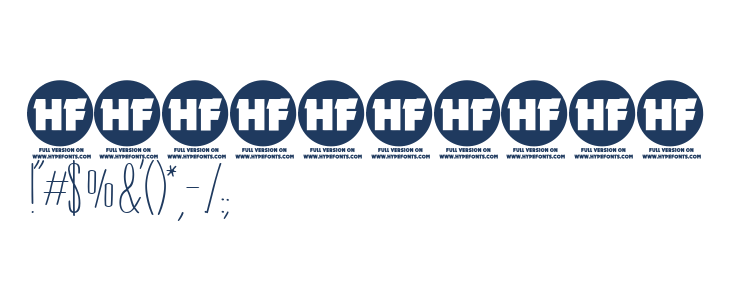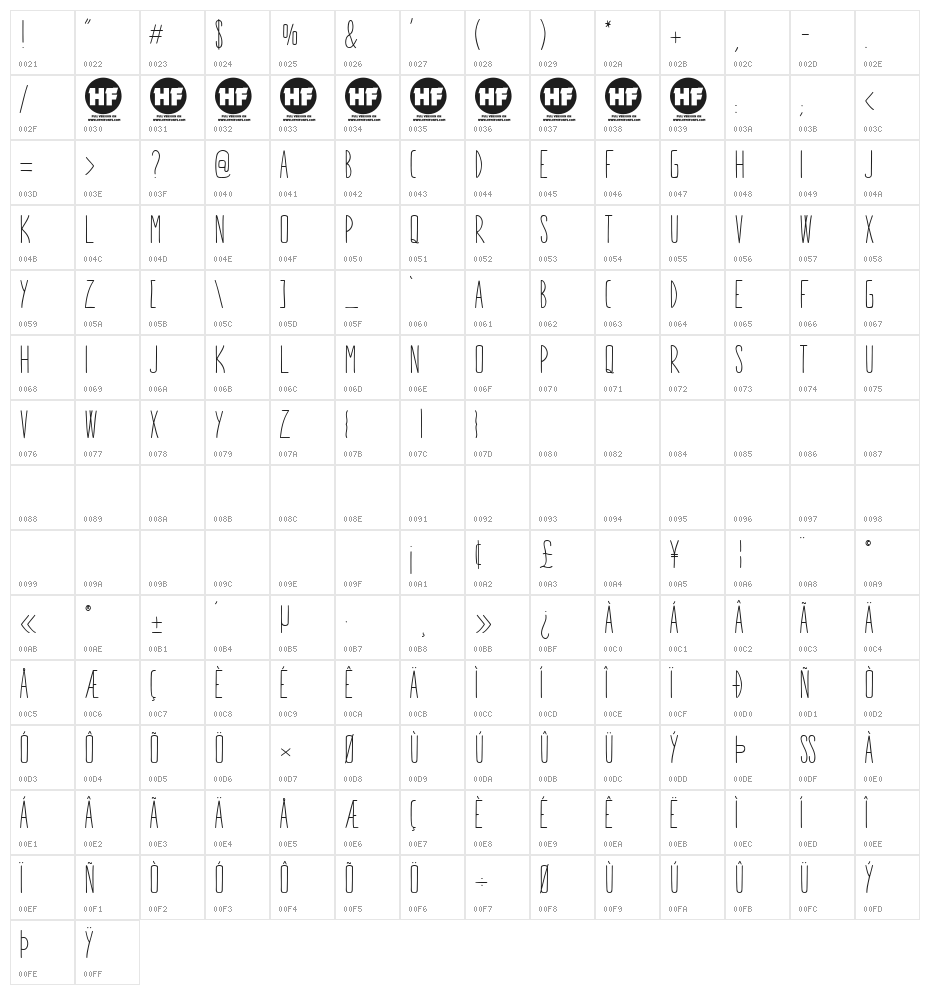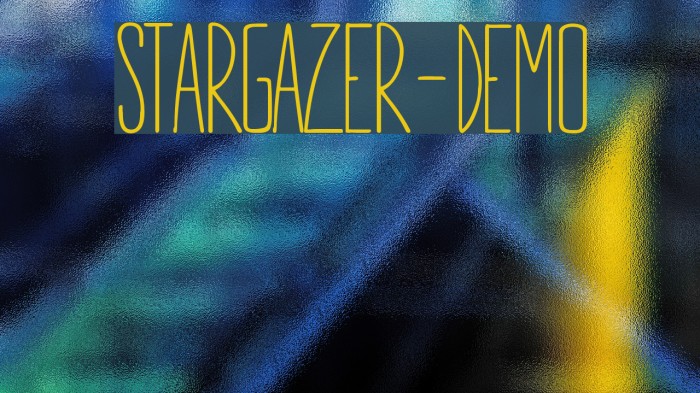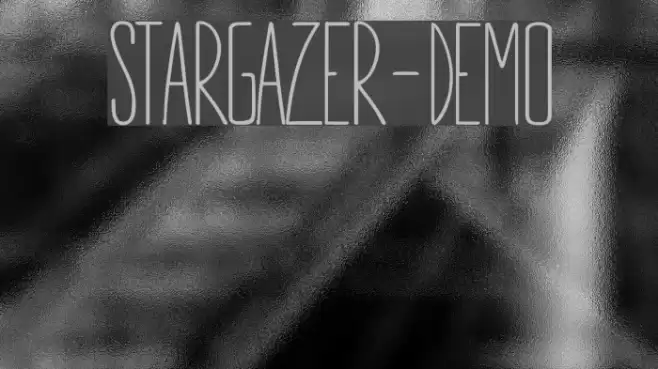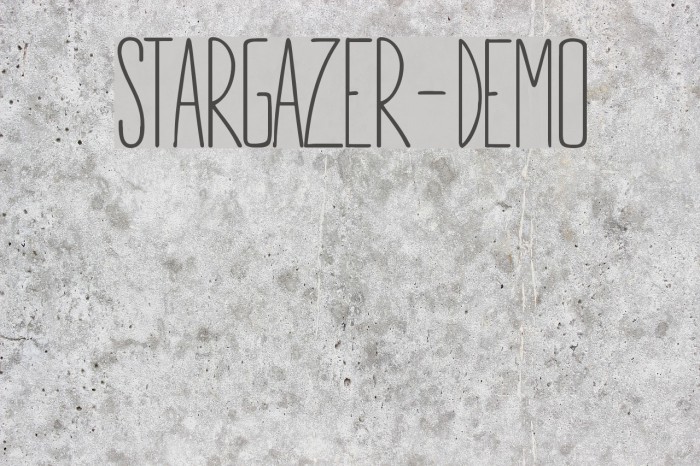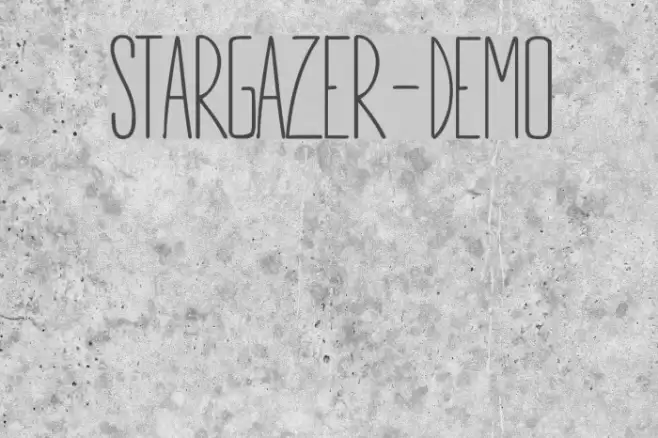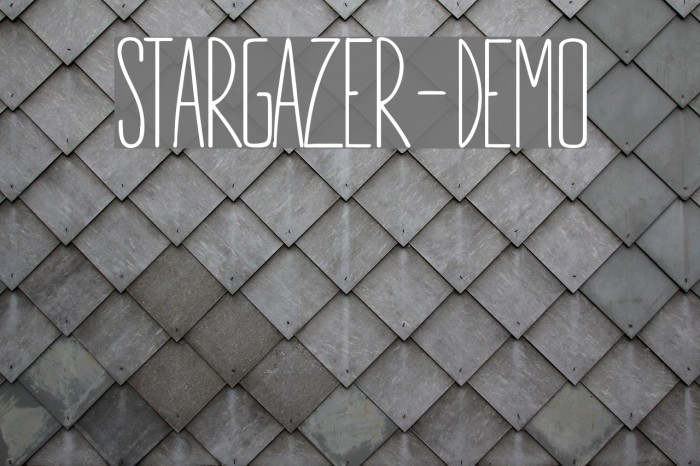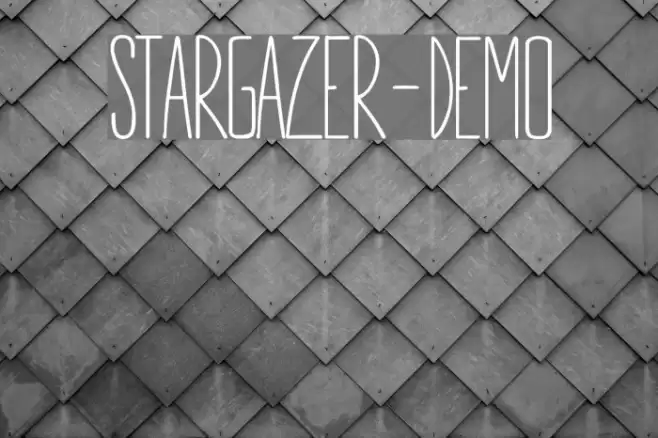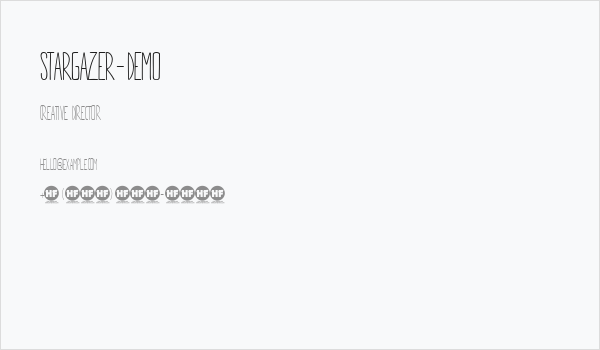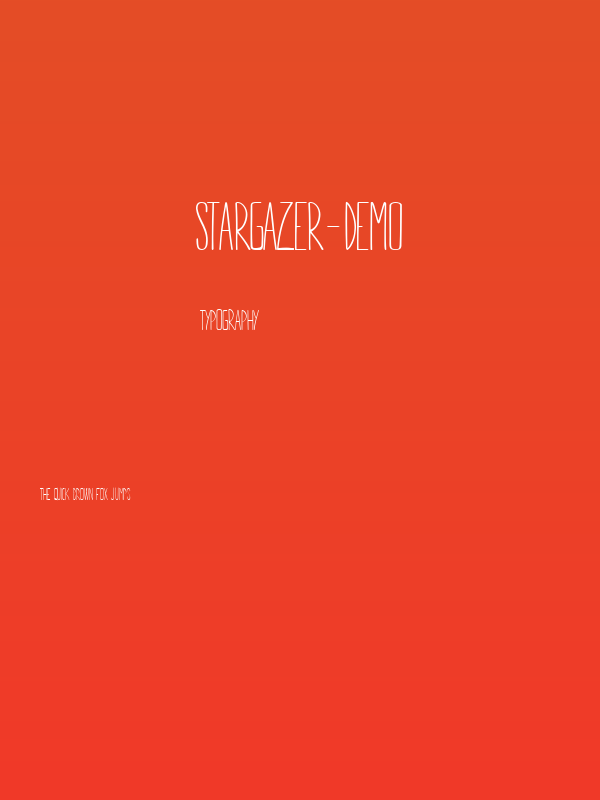
STARGAZER-demo Font
STARGAZER-demo Description
This font features a tall, narrow design with clean, straight lines and minimal curves, giving it a modern and sleek appearance. The uppercase and lowercase letters are consistent in style, maintaining a uniform height that contributes to its elongated look. The characters are evenly spaced, providing a balanced and readable text. The font's thin strokes and lack of embellishments make it suitable for contemporary designs, where simplicity and elegance are desired. Its geometric structure adds a touch of sophistication, making it ideal for projects that require a refined yet understated aesthetic.
| Proposed Projects | Ideal for branding, logos, headlines, and editorial design where a modern and elegant look is desired. |